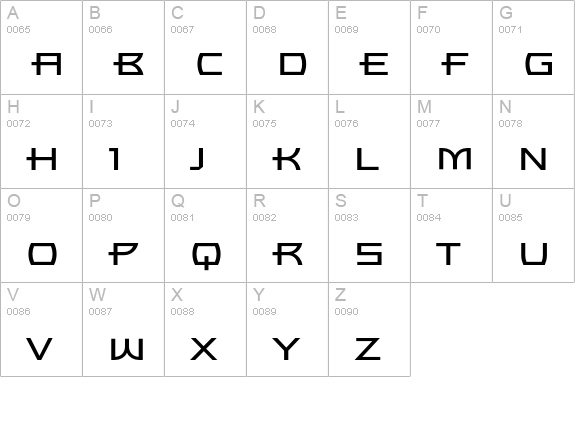
UltraBronzo-Regular is the standard, neutral variant in the UltraBronzo typeface family \xE2\x80\x94 well suited to general body text, paragraphs, and standard typographic work.
UltraBronzo-Regular is a stunningly elegant and versatile font that is perfect for adding a touch of sophistication to any design project. With its clean lines and modern aesthetic, this font is sure to make a lasting impression. This font features a unique combination of boldness and delicacy, making it suitable for a wide range of applications. Whether you're designing a logo, creating a poster, or crafting a website, UltraBronzo-Regular will help you achieve a polished and professional look. The versatility of UltraBronzo-Regular is further enhanced by its extensive character set, which includes both uppercase and lowercase letters, numbers, punctuation marks, and special characters. This allows you to create a variety of different looks and styles, ensuring that your designs stand out from the crowd. One of the best things about UltraBronzo-Regular is that it is freely available to download at FontsMarket.com. This means that you can start using this font in your projects without having to worry about any licensing restrictions or fees. Simply visit FontsMarket.com, download the font, and start using it right away. Whether you're a professional designer or a beginner, UltraBronzo-Regular is a font that will elevate your designs to new heights. Its timeless elegance and versatility make it a must-have for anyone looking to create visually stunning and impactful designs. So why wait? Download UltraBronzo-Regular today and start transforming your designs into works of art.